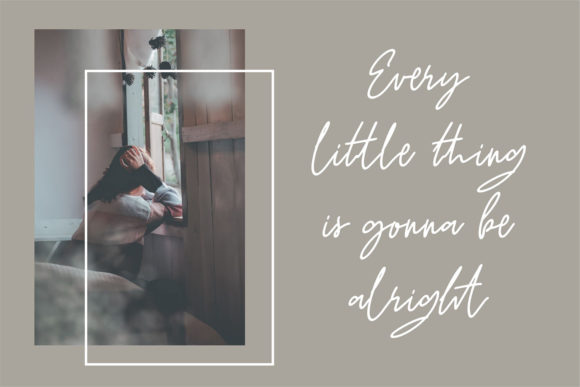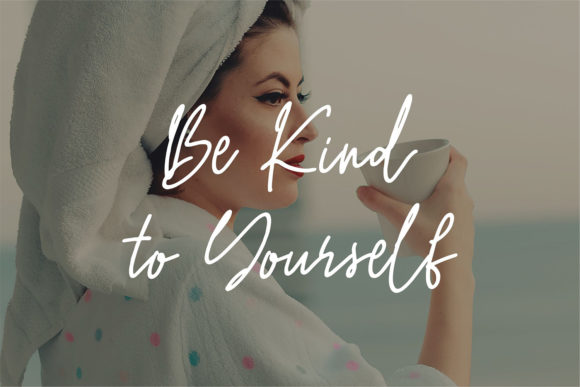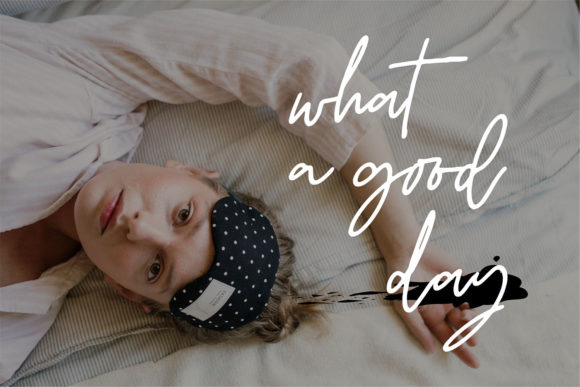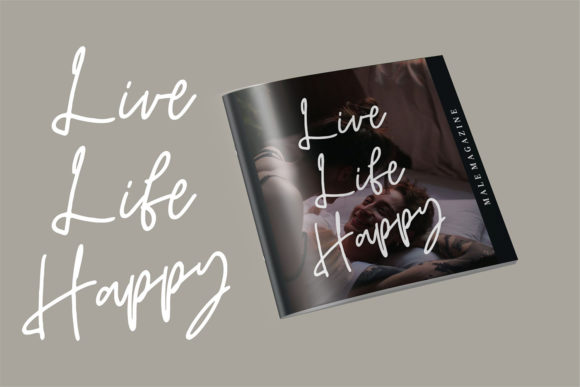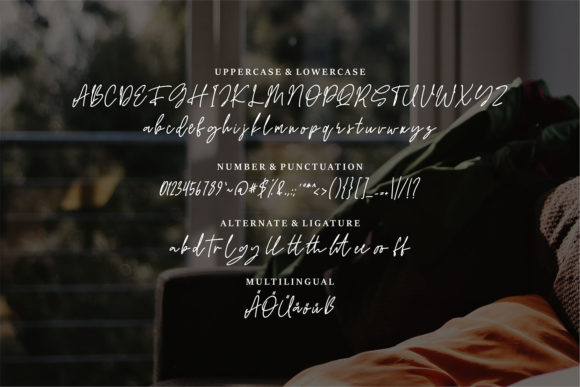
Saggie Font
About Saggie Font
Saggie is a modern handwritten font that has a natural and beautiful flow. It will look amazing on wedding invitations, greeting cards, branding materials, business cards, quotes, posters, and many more! Add it to your most creative designs and make them stand out!